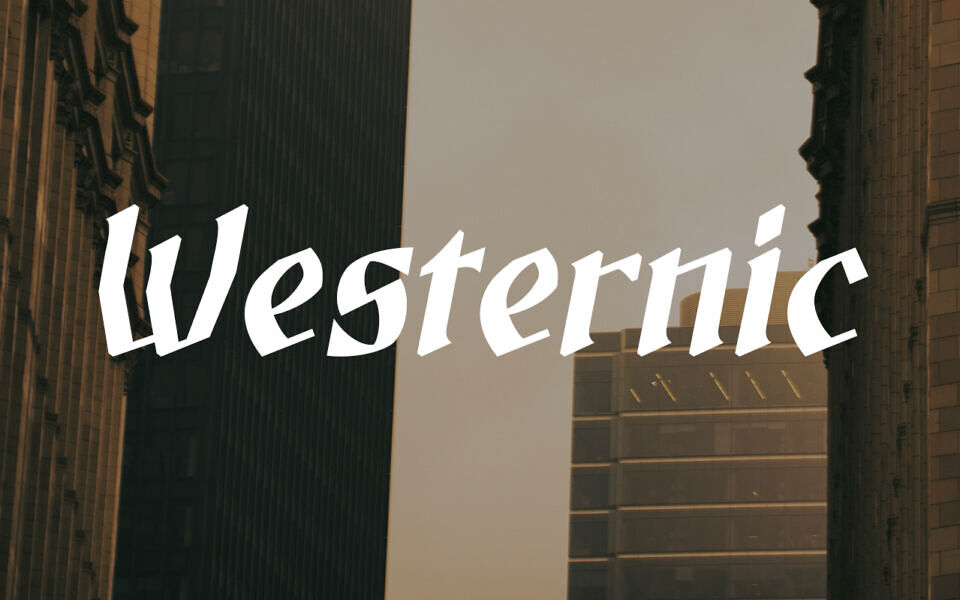
Oct 26, 2025DisplayWesternic Font Westernic is a free typeface inspired by a 1920s electric company poster. It’s italic, gothic but not too much. More suited to headlines than anything else. Font DetailsDesigned by: Erwan Le RétifWebsiteLicense: Free for commercial use Download Westernic FontFile size: 5.77 KBCreated: October 26, 2025Updated: October 26, 2025 Download Explore related fonts Mythgrove Font Wedgen Holdeza Font Last Chronicle Font Bandosa Font Olde English Font Kensington Palace Font Chapelargo Font Eldrake Font # Blackletter# Classic# Display# Fancy# Gothic# Headline# Italic# Medieval# Retro# Sharp# Vintage